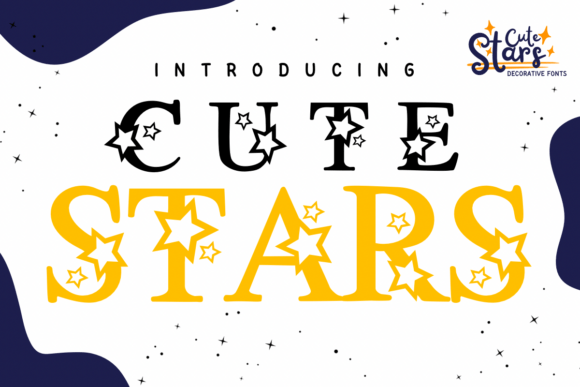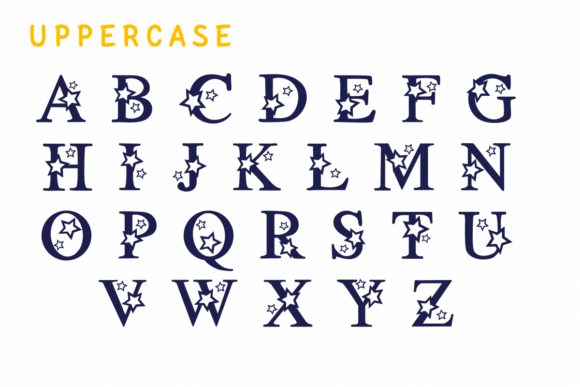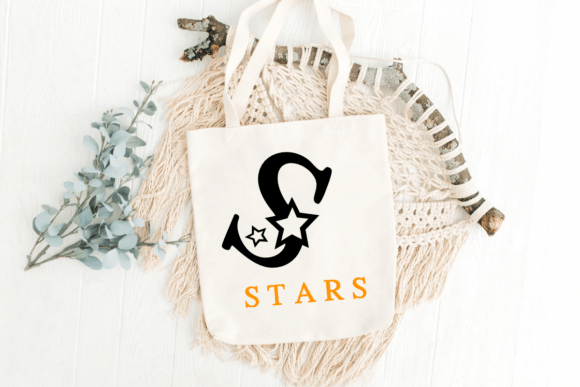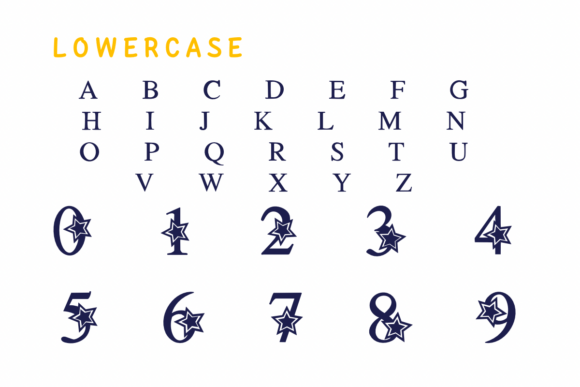
Cute Stars Font
About the Cute Stars Font
We are excited to introduce Cute Stars Font, a must-have typeface for any serious designer. Cute Stars is a Decorative font. You can use it for taking notes, writing a diary, or making greeting cards. However, you can still use it for other designs, such as banners, content, mugs, cards, shirts, stationery, social media posts, and more!
Cute Stars’ playful, whimsical design excels in projects requiring a lighthearted touch. It’s ideal for children’s books, branding for sweet treats or toy companies, and eye-catching social media graphics. However, its decorative nature makes it unsuitable for large blocks of text or user interfaces where readability is paramount.
Consider pairing Cute Stars with a clean sans-serif like Open Sans for body copy, creating a balanced contrast between the playful headline and easily readable text. Alternatively, a classic serif such as Garamond can add a touch of sophistication, tempering the font’s inherent whimsy for a more mature feel.
The font’s overall personality is undeniably cheerful and friendly. Avoid using it in contexts demanding seriousness or professionalism; instead, utilize it where a sense of fun and lightheartedness is desired.